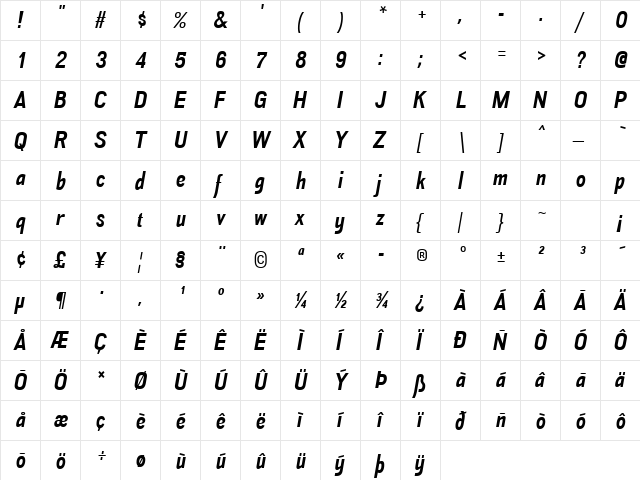
Akazan Bold Italic
Design Context for Akazan Typeface
Akazan offers clean, dependable letterforms without strong stylistic allegiance, making it a practical choice for designers who need flexibility. The slanted form adds forward momentum and visual energy. Its bold stroke weight gives it real presence on the page.
Pro Tip: Try Akazan for annotation and caption copy alongside an upright companion — the contrast in angle creates a dynamic but ordered typographic system.